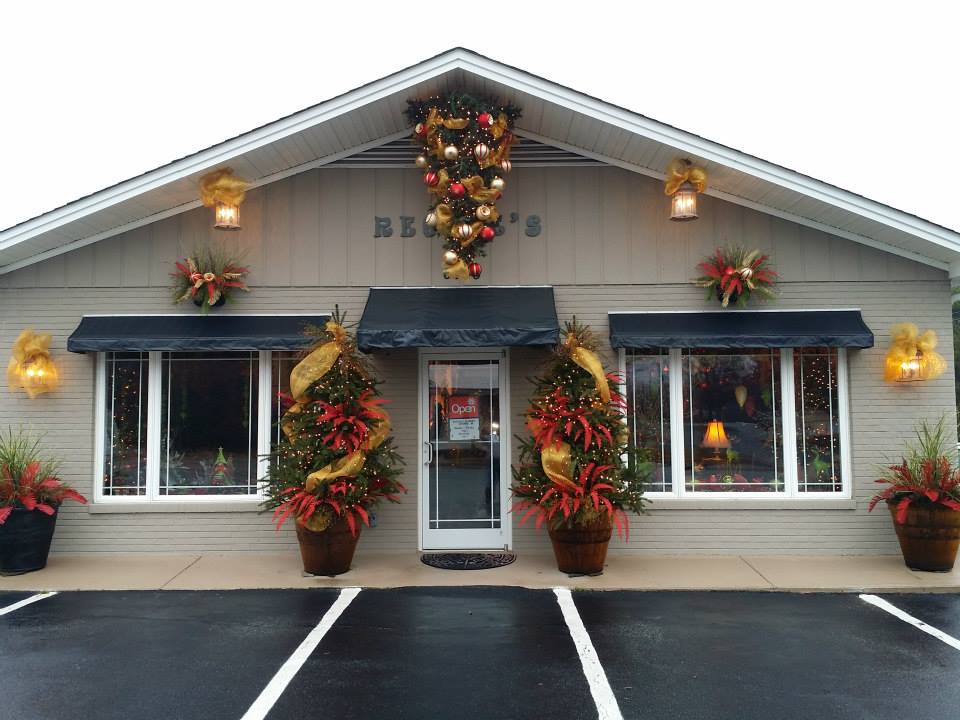
its the font above the door of building. Also the photo was so bad that matcherator and what the font couldnt read it.
That looks like wooden letters you buy at Home Depot or some other place that sells such things.
got an answer: Ravie